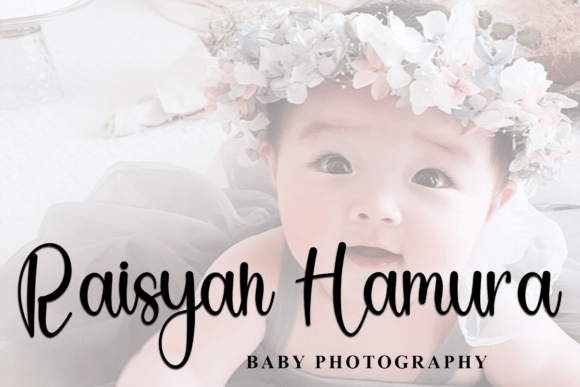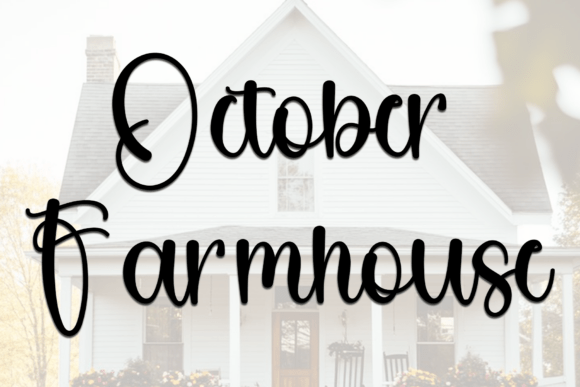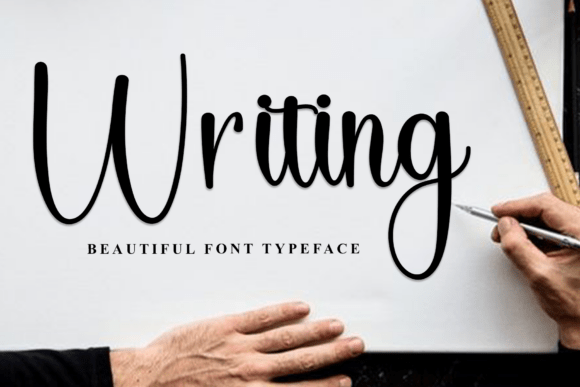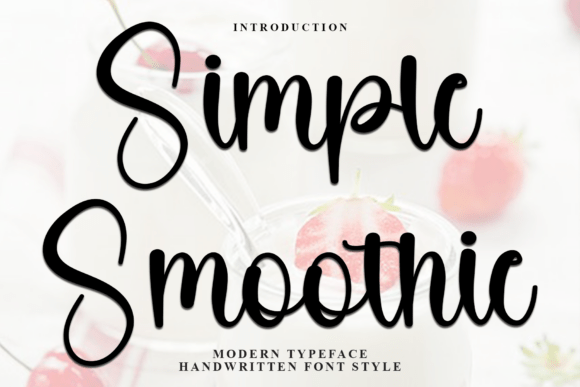
Introduction to Simple Smoothie Font
Simple Smoothie is a beautiful and eye-catching font designed with a soft, unique touch.
Its distinctive strokes give it a special character, making it meaningful and versatile for future use With various characters, it’s perfect for design projects, crafts, and other creative works.
Key Features of Simple Smoothie Font
Simple Smoothie Font offers exceptional quality and versatility, making it a valuable addition to your design toolkit. Whether you’re creating for personal projects or commercial use, Simple Smoothie Font delivers professional results.